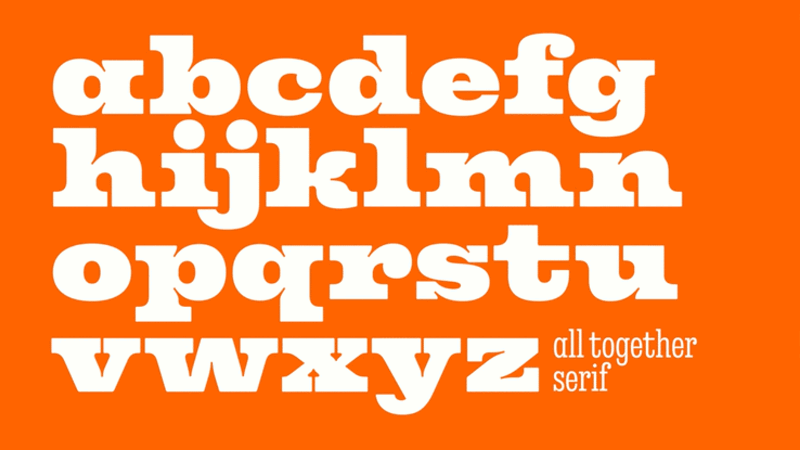
All Together: A Playful New Typeface That Reflects the Joy of M&M’S
M&M’S® has been bringing people around the world together for more than 80 years. This year, the iconic brand got a modern makeover, with a revamped purpose of creating a world where everyone feels they belong. Other changes include a fresh look and updated personalities for the famous M&M’S characters; a more inclusive and welcoming tone of voice; and a new, attention-grabbing typeface called All Together — a large, warm, playful, and conversational family.
A strong long-standing relationship led the M&M’S team and their agency, Jones Knowles Ritchie (JKR), to choose Monotype for the brand’s first custom typeface design. Monotype’s global language support was important, too. “Monotype is such a big brand, with the ability to develop type for lots of languages and markets. I felt more comfortable working with a partner that has that scale and international awareness,” Mars’ Global Director of Brand Identity and Design, Steffi Marty, said.
For me, the real ‘aha’ moment was when we saw the revised characters speaking in their typographic voices. Within this family, there’s so much expression typographically that characters as different as these can each find a unique voice. ”
Charles Nix, Creative Type Director.
Sketches from early stages of the project.
To fuel the collaboration, the design teams were offered a clear vision as a guide. “As the M&M’S brand takes on a wonderful purpose, we want the identity to reflect and support the communication of all of that. The intent of the identity is to live the purpose, to be more digitally savvy, and to make the purpose omnipresent in all we do,” Marty explained. JKR’s design team collaborated with Monotype Creative Type Director Charles Nix and Type Designer Juan Villanueva to harmonize the typography with the brand’s new visual identity.
The first imperative was personality — the new typeface needed to scream “M&M’S” right away. Nix and Villanueva achieved this with a big, chunky, characterful slab serif style that hearkens back to the vintage M&M’s look and reinforces the brand’s jester wit. Incorporating joyful details — like smile-shaped ink traps and round ball terminals that look just like the candy — amped up the fun.
Flexibility was another essential element. All Together would be used in everything from packaging to video to digital text; that led to the decision to use variable font software, which incorporates a huge range of width, weight, and style variation within a single font file. All Together Sans and All Together Serif represent a huge design spectrum capable of crisp type for small, dense packaging text and charismatic headlines and animations.
“For a brand of the scale of M&M’S, you really need flexibility with the type,” explained Lilia Quinaud, Senior Designer with JKR. “Having both a sans and a serif family gives you the flexibility you need to show both functional information and fun, bold attention-grabbing information. We started with All Together Serif, which is inspired by the drawings and serifs of the logo. That’s why it feels like M&M’S as soon as you see it.”
With more type options, designers have the freedom to combine and contrast letterforms to achieve the perfect look or emotion to suit the message. “The All Together Sans and Serif families are not a collection of static instances. The spectrum of possibilities creates a new, multi-dimensional design space with opportunities to create more fluid and expressive visuals,” Nix said.
Variable type is perfect for representing the voices of each of the updated mascots, too. “For me, the real ‘aha’ moment was when we saw the revised characters speaking in their typographic voices,” Nix said. “Within this family, there’s so much expression typographically that characters as different as these can each find a unique voice.” M&M’S new typography truly reinforces the goal of the rebrand: we’re All Together, and there’s strength in our diversity.